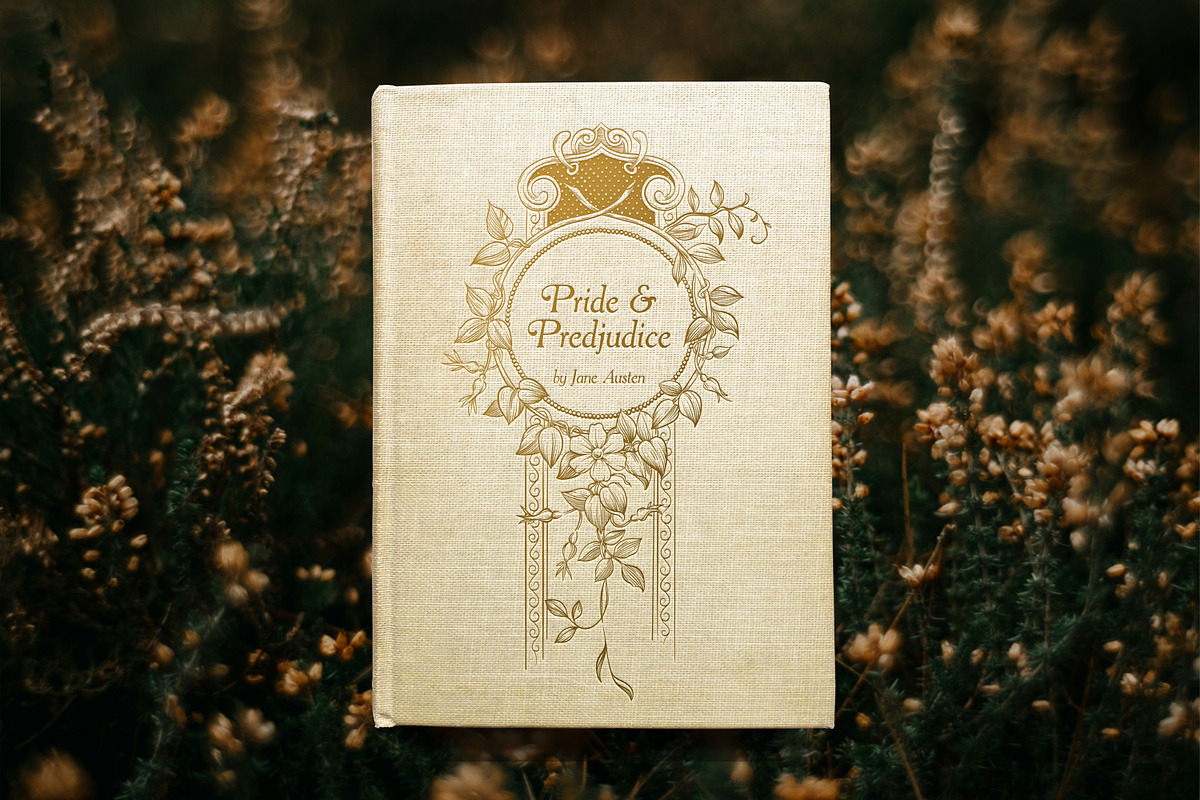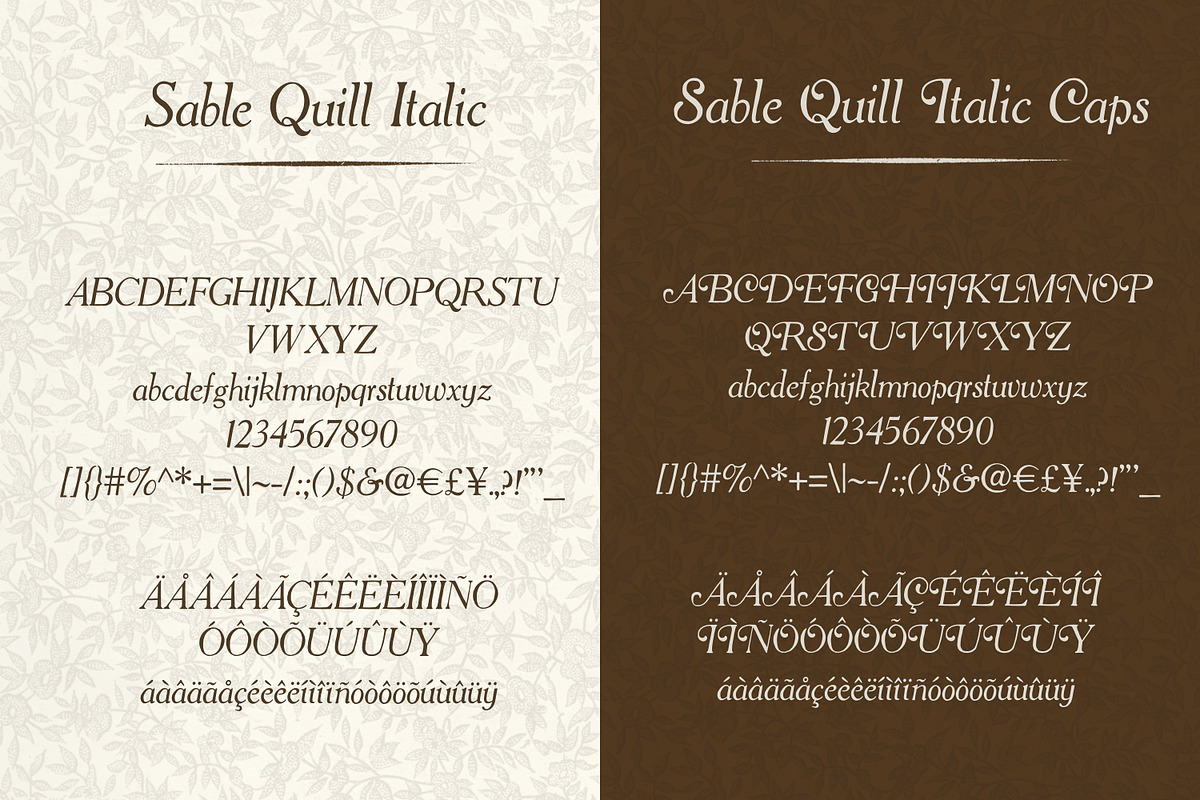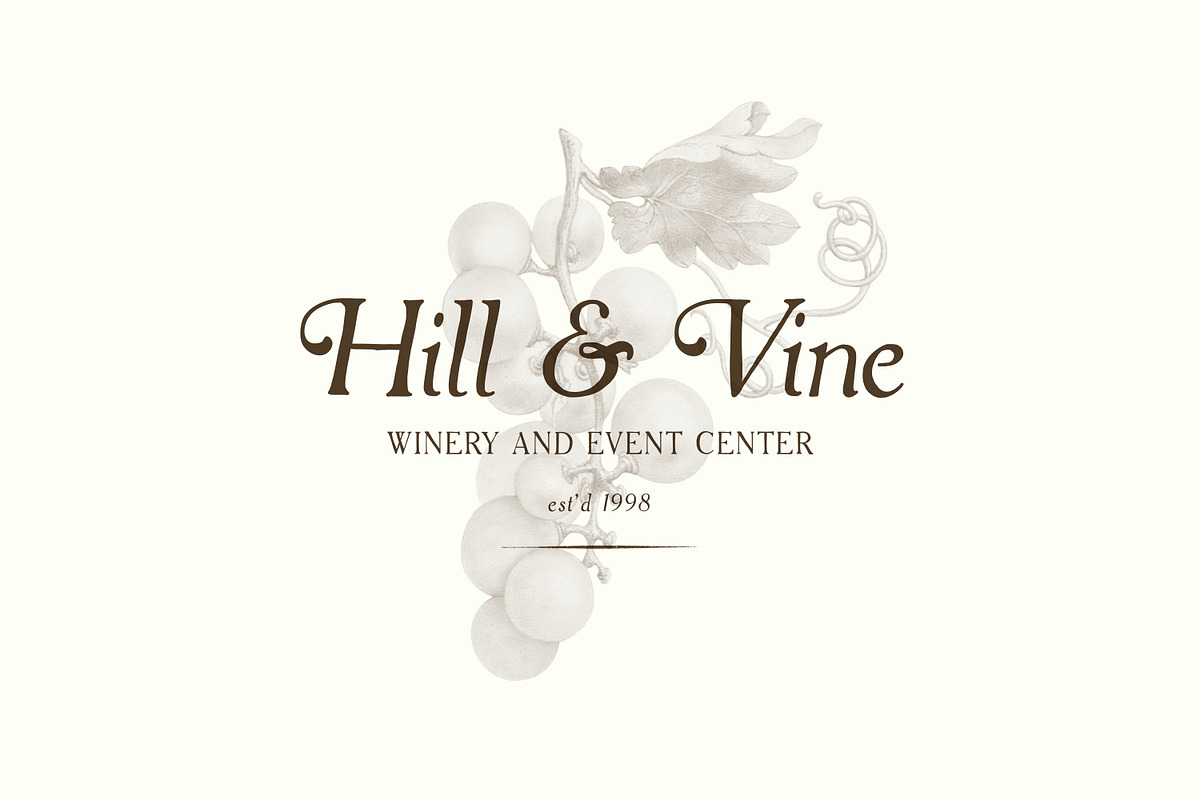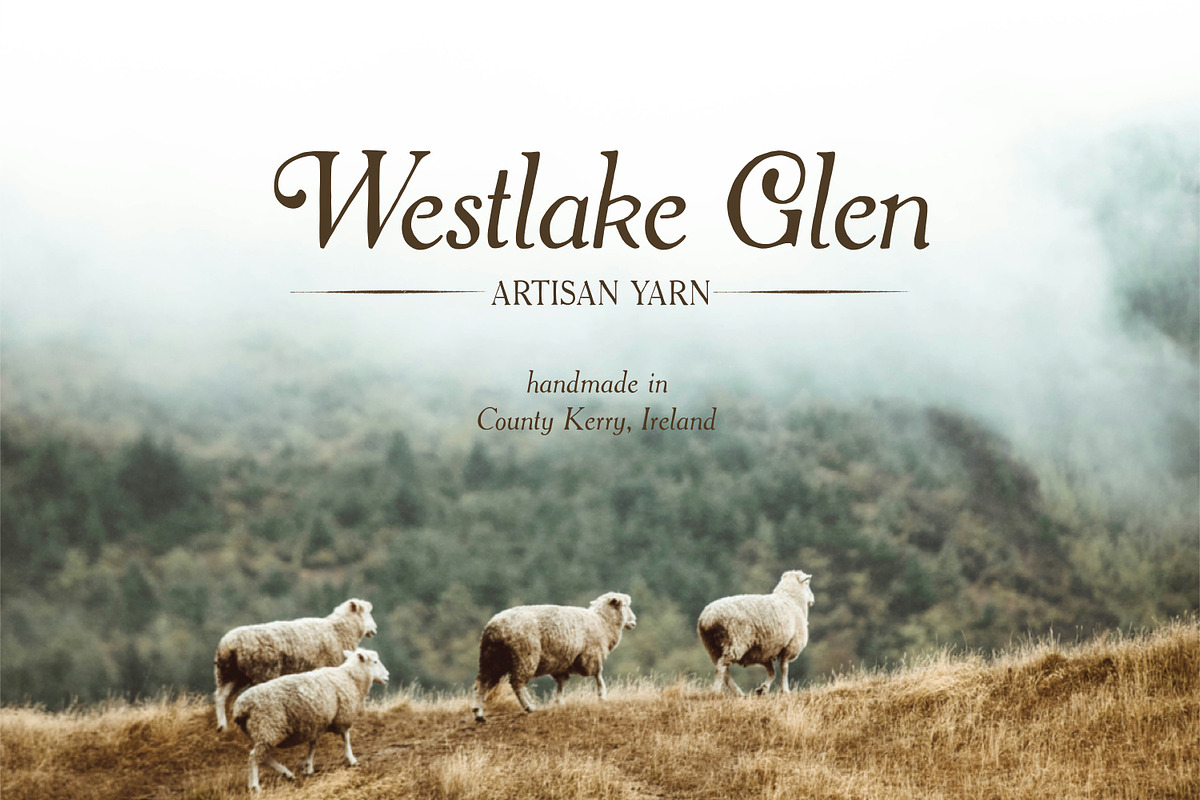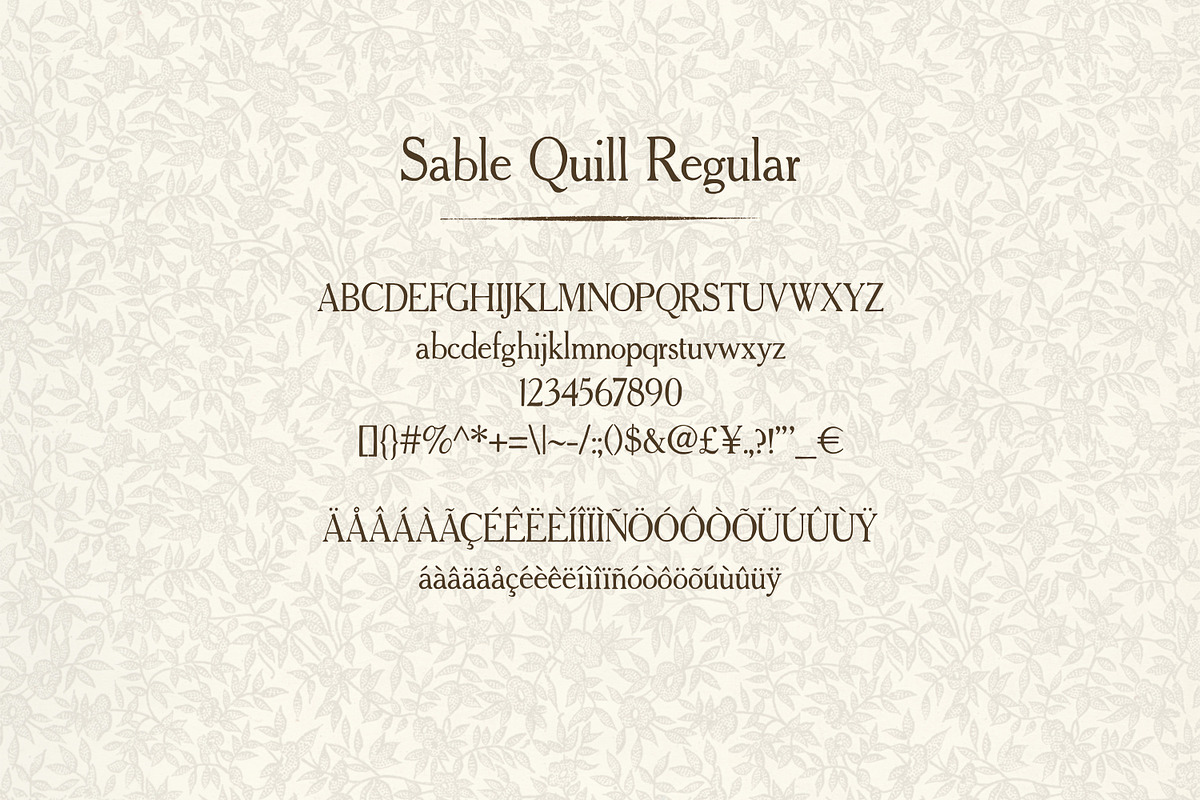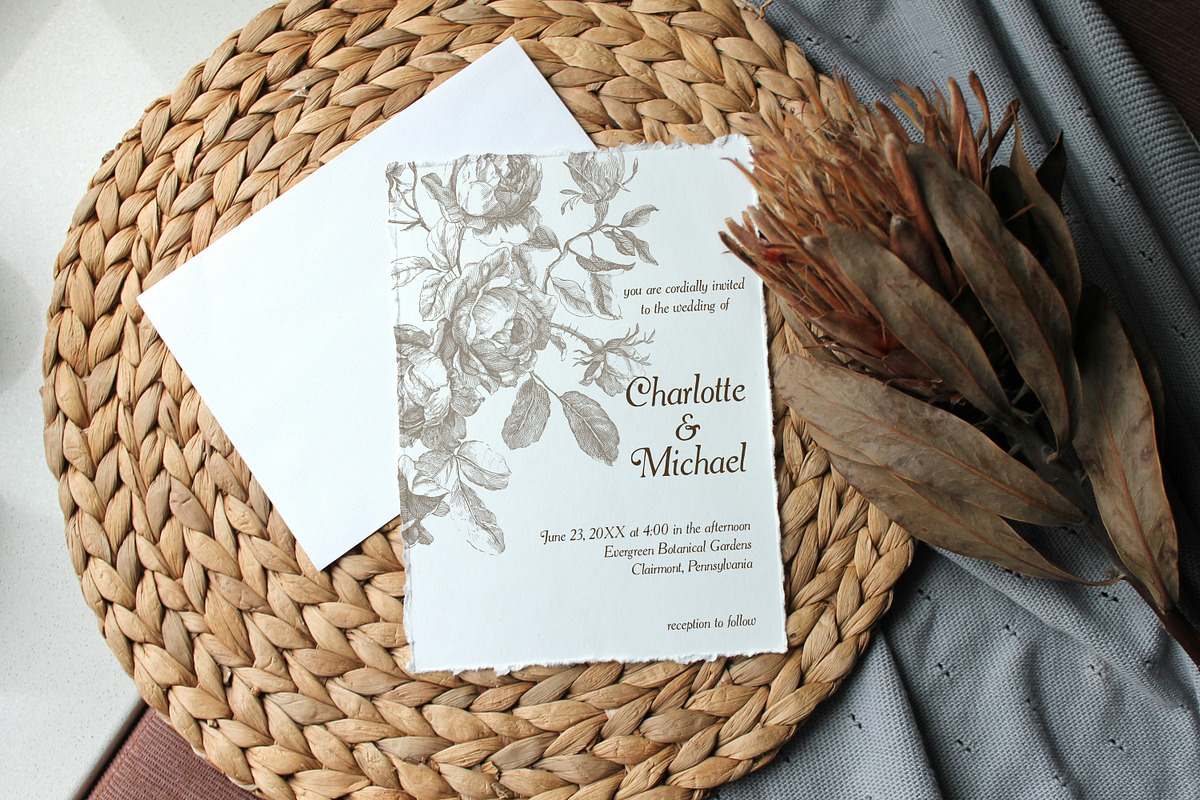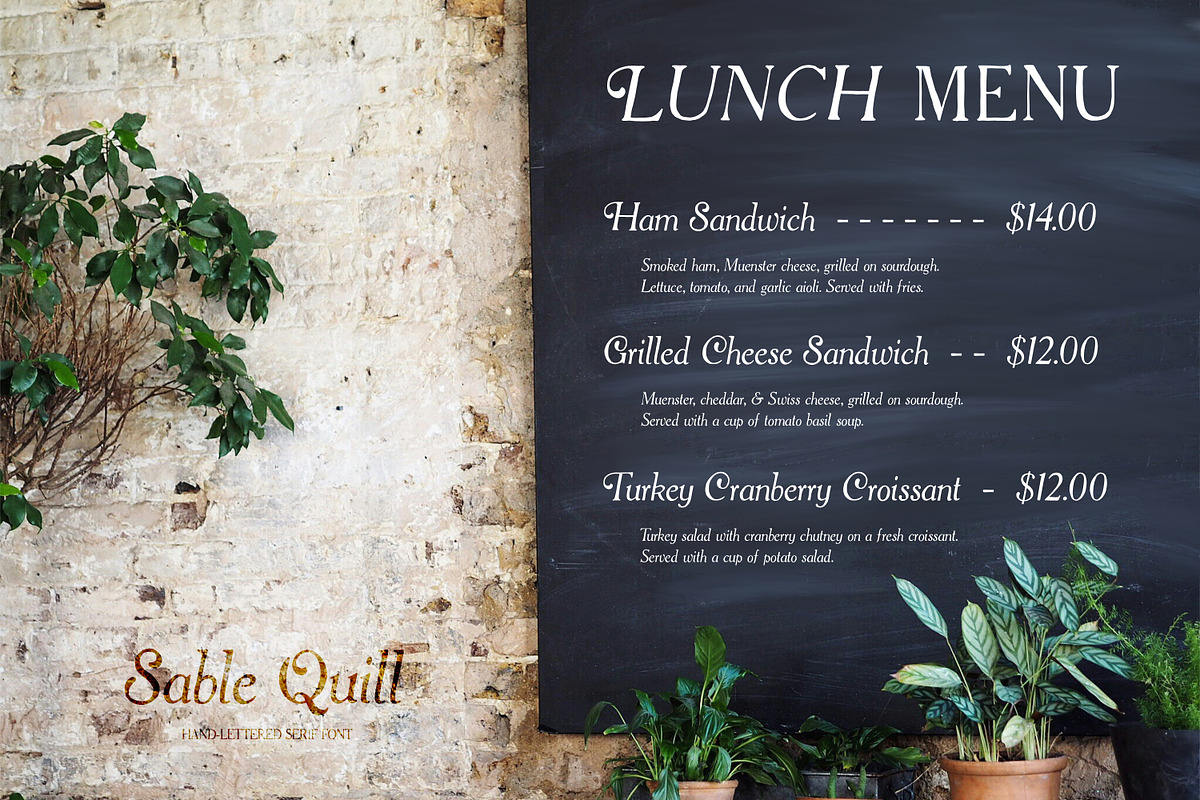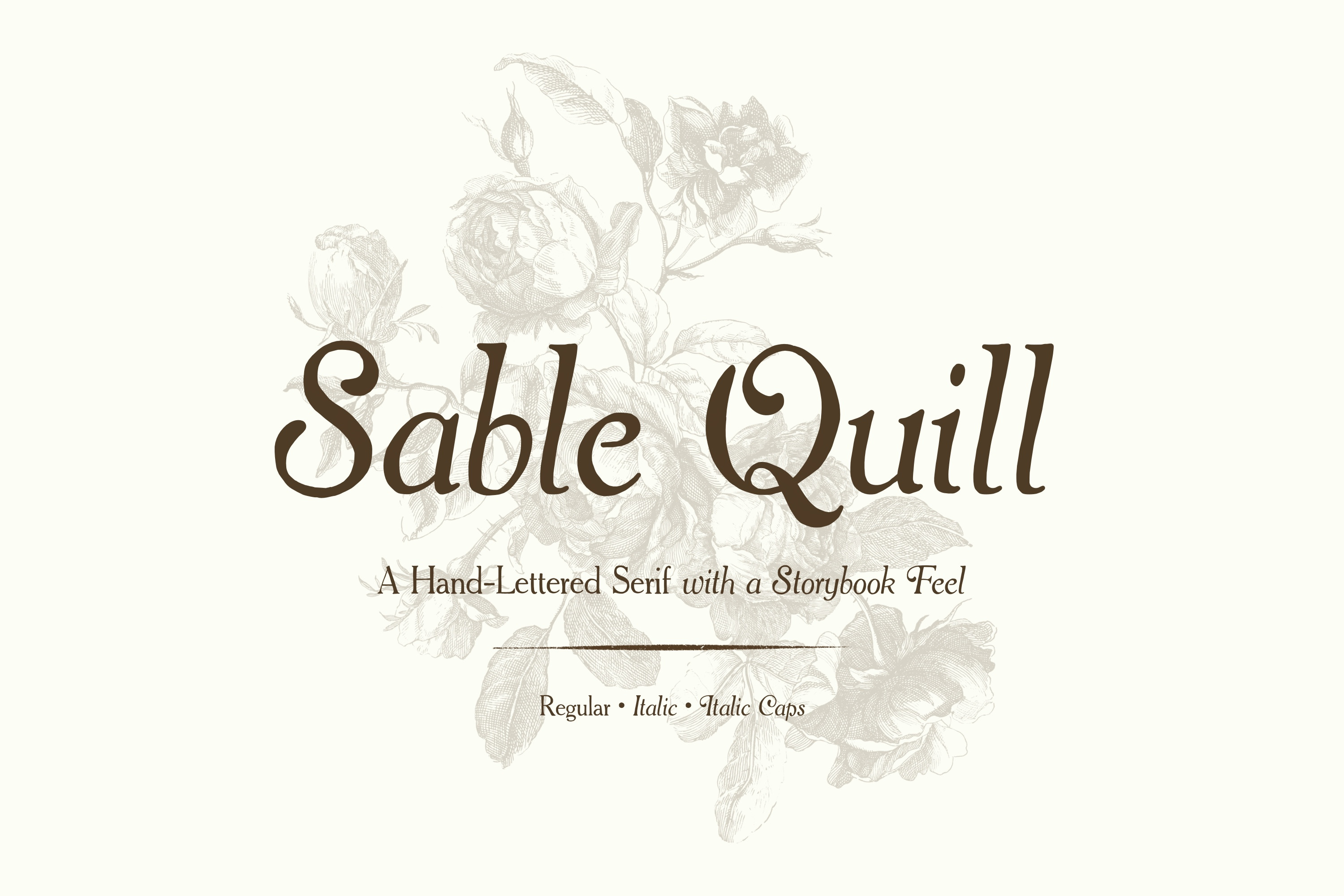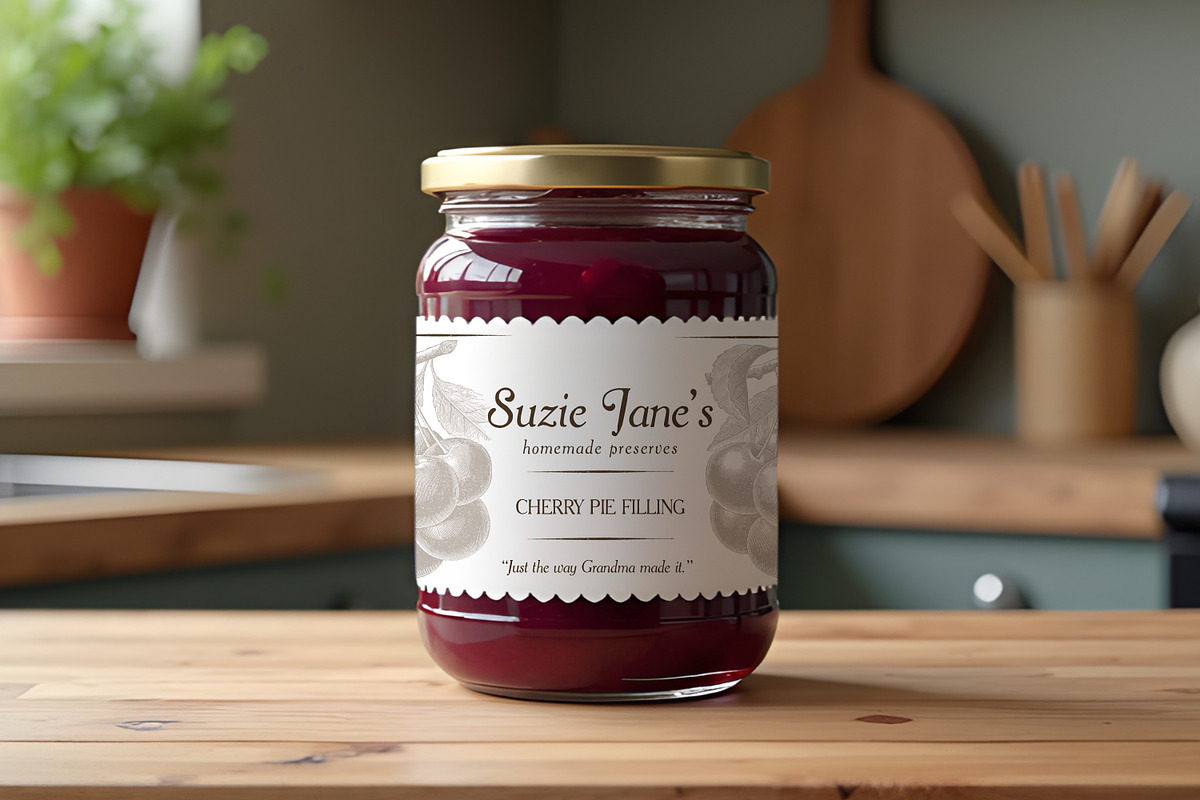
Sable Quill Hand Drawn Serif Font
Sable Quill is a hand-drawn serif multilingual font family inspired by antique lettering. This font family includes three styles: Regular, Italic, and an Italic featuring embellished capital letters.
Sable Quill is perfect for stationery, heritage-inspired branding, and packaging as it was designed to feel both nostalgic yet refined. The gentle irregularities in spacing and alignment add character, giving your designs a storybook feel.